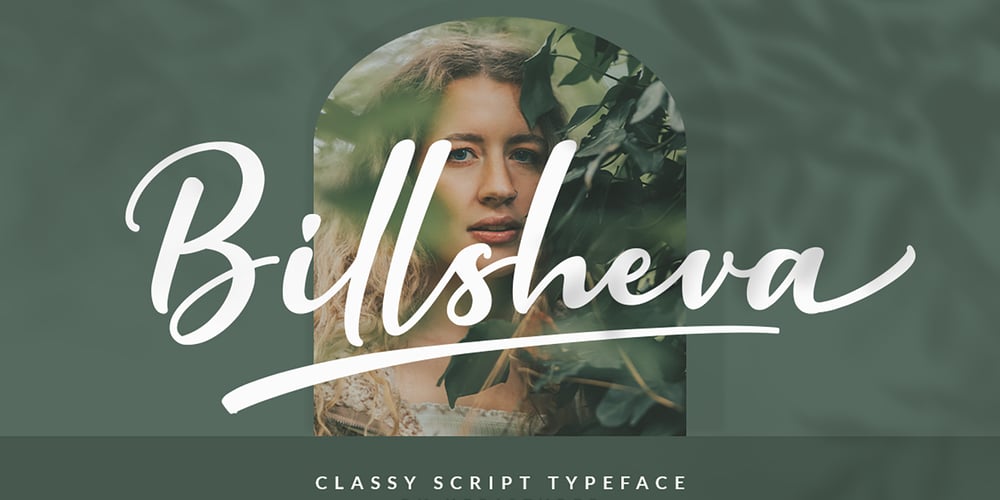
Billsheva
Billsheva font
Billsheva Font Family was designed by Tezar Tantular and published by Keristyper Studio. Billsheva contains 1 styles and family package options. Billsheva Classy Script Font is a modern handwritten script font with lovely touch. Billsheva Font will work perfectly for fashion, e-commerce brands, trend blogs, wedding boutiques or any business that wants to appear upscale and chic.Featured : Standard Uppercase & Lowercase Numeral & Punctuation Multilingual : ä ö ü Ä Ö Ü ß ¿ ¡ Alternate & Ligature PUA encoded We recommend programs that support the OpenType feature and the Glyphs panel such as Adobe applications or Corel Draw. so you can use all the variations of the glyphs.Hope you enjoy our fonts!